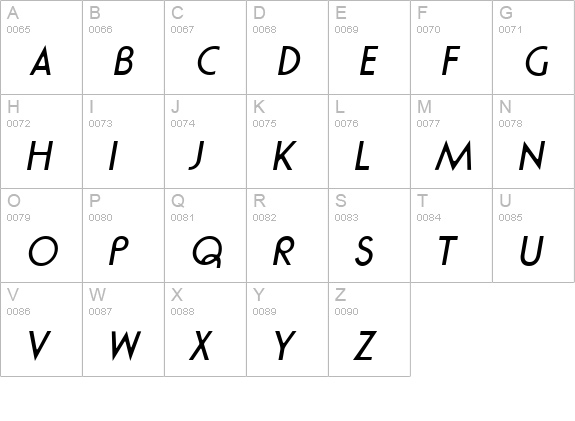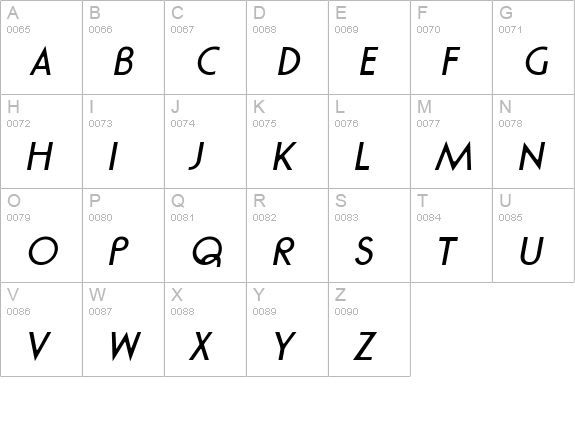
R791-Deco-Italic is a distinctive, italic variant in the R791 typeface family \xE2\x80\x94 well suited to design and typography projects.
R791-Deco-Italic is a stunning and elegant font that exudes a sense of sophistication and style. Its sleek and stylish design is perfect for adding a touch of class to any project or design. The italic style adds a unique flair, making it stand out from other fonts. This font is versatile and can be used for a variety of purposes, from branding and logo design to invitations and posters. Its clean lines and modern look make it suitable for both digital and print applications. Best of all, R791-Deco-Italic is available for free download at FontsMarket.com. So you can easily access this beautiful font and enhance your designs without any cost. Don't miss out on the opportunity to use this elegant font in your next project!